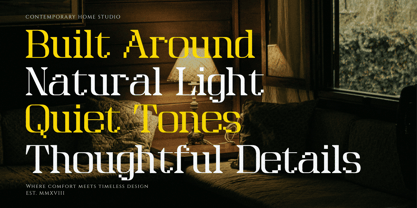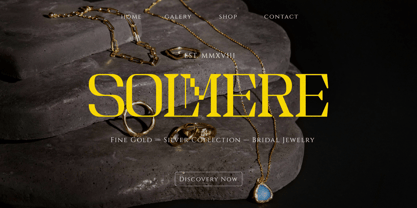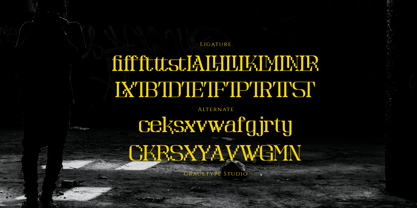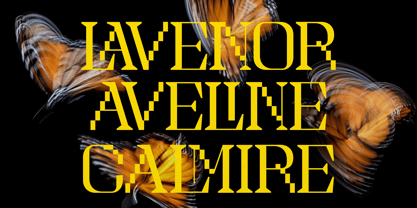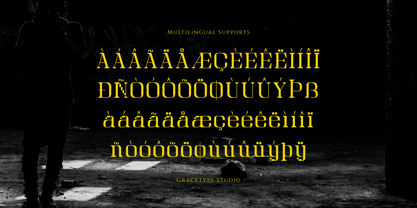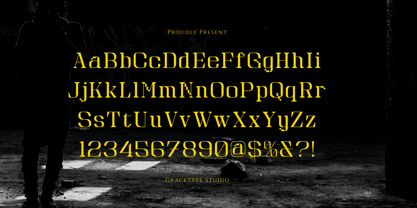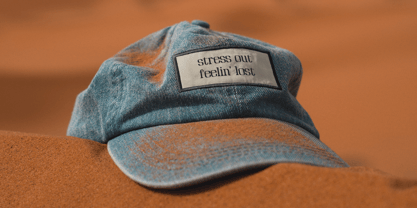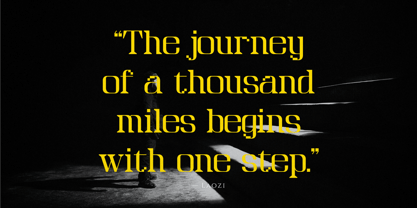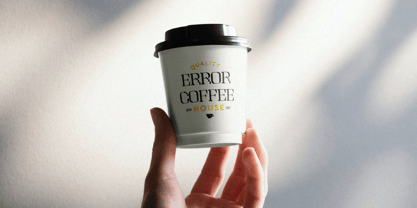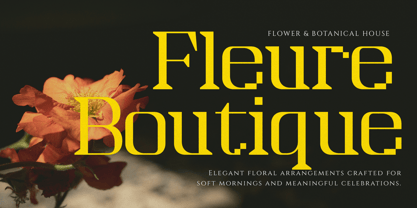
Myten Years
von Tini Fitriani
Die Schriftfamilie Myten Years entworfen und von Tini Fitriani veröffentlicht. Myten Years enthält 1 Stile. Mehr über diese Familie
Myten Years | Display Serif Font, from Gracetypestudio, suitable for any projects such as: logos, branding projects, homeware designs, product packaging, mugs, quotes, posters, shopping bags, t-shirts, book covers, name card, invitation cards, greeting cards, label, photography, watermark, special events, and all your other lovely projects that need a Serif taste.